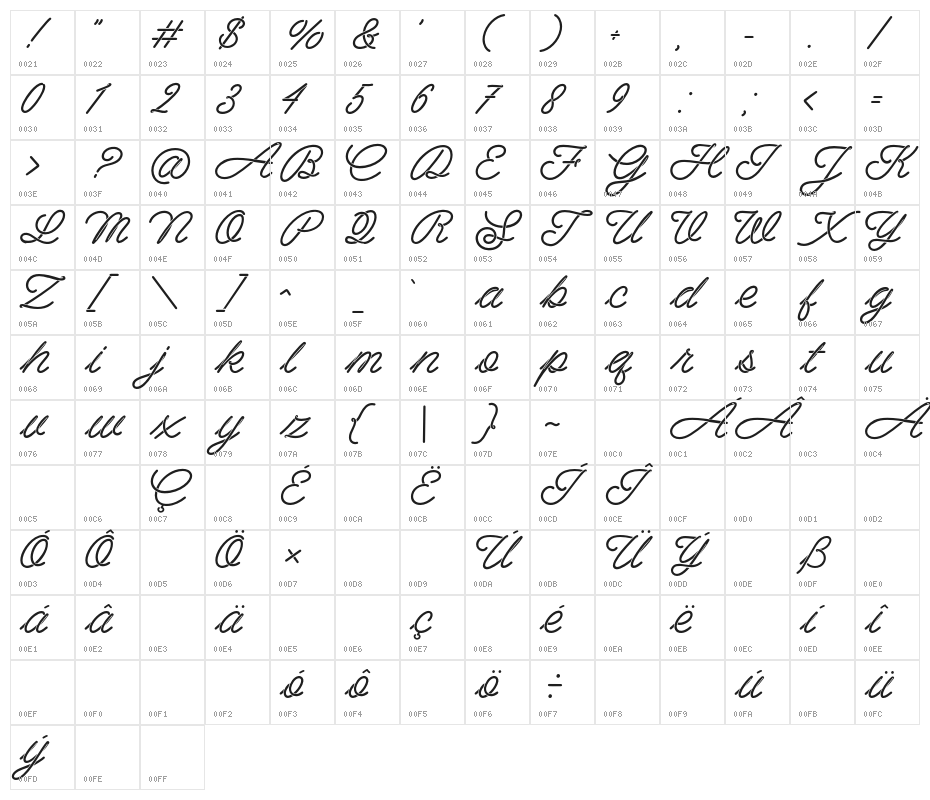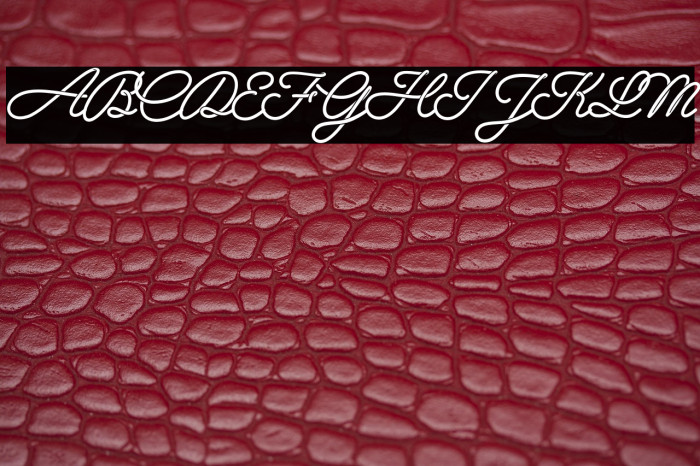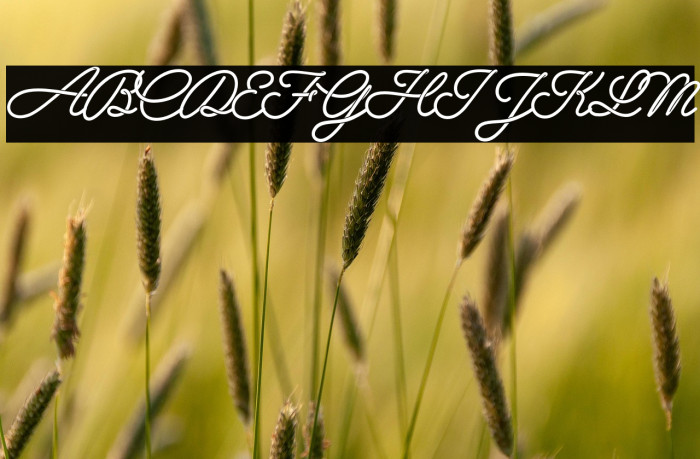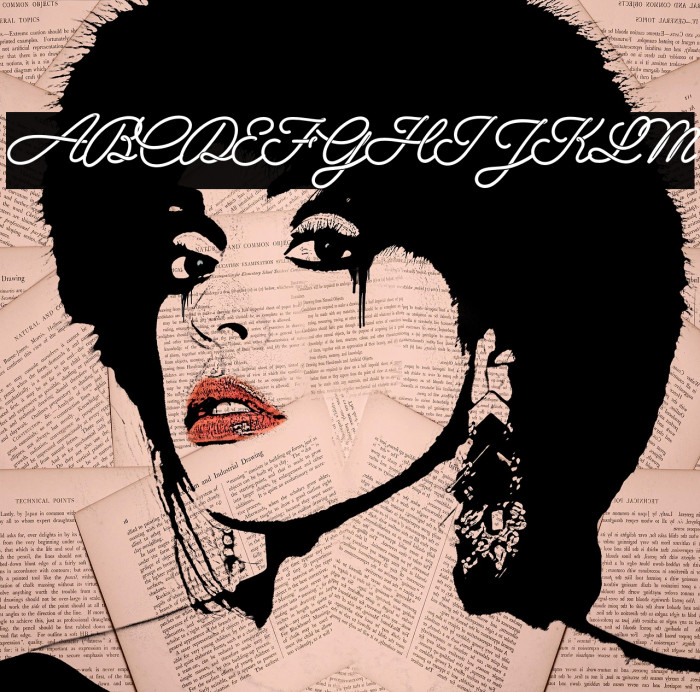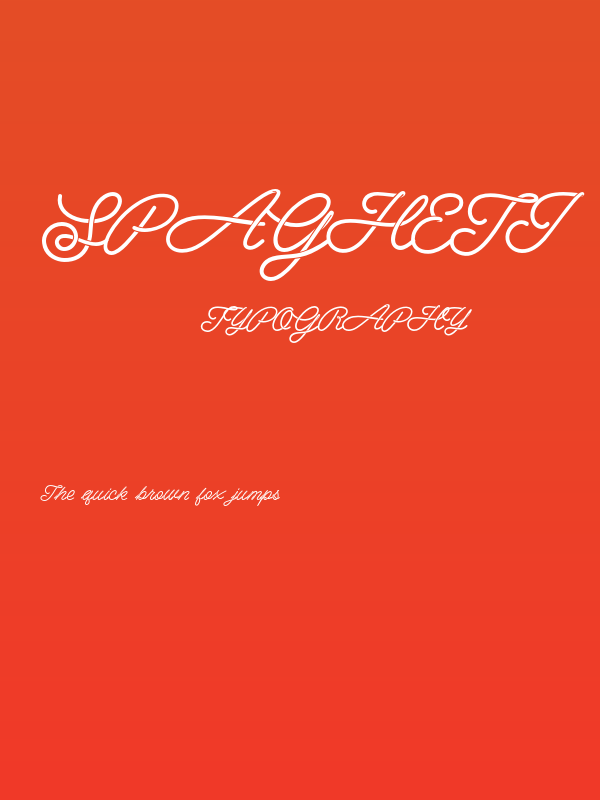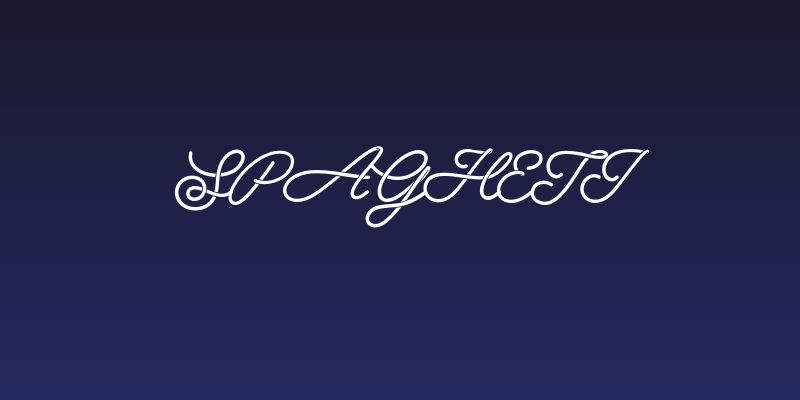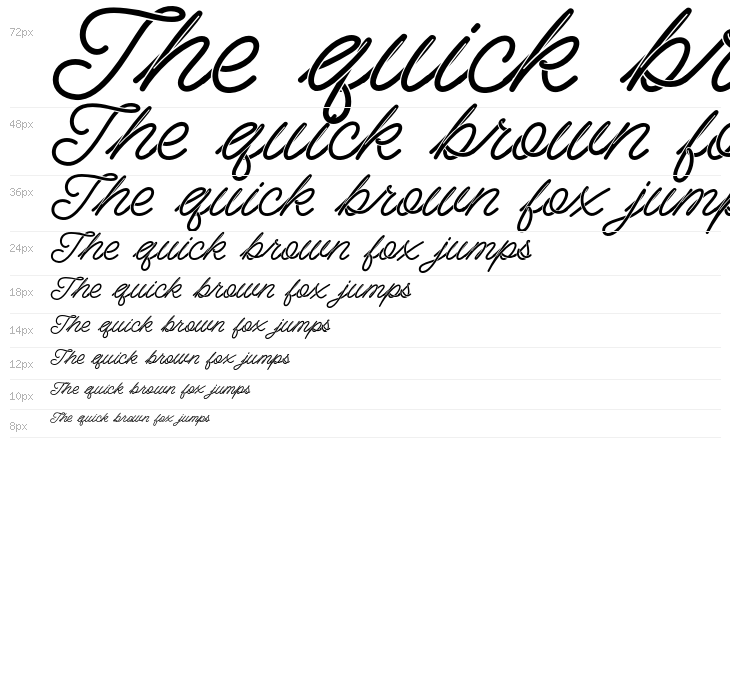
Spagheti Font
Spagheti Description
This elegant script font features fluid, connected strokes that mimic the natural flow of handwriting. The uppercase letters are ornate and slightly larger, providing a graceful contrast to the more subdued lowercase letters. Each character is designed with a consistent slant, enhancing the cursive style. The numerals and special characters maintain the same fluidity, ensuring a cohesive look across all text. This font exudes sophistication and charm, making it ideal for projects that require a personal touch.
| Overall Style | Elegant |
| Use Case | Logos, Invitations, Personal Branding |
| Proposed Projects | Ideal for wedding invitations, greeting cards, personal branding, and elegant packaging designs. |